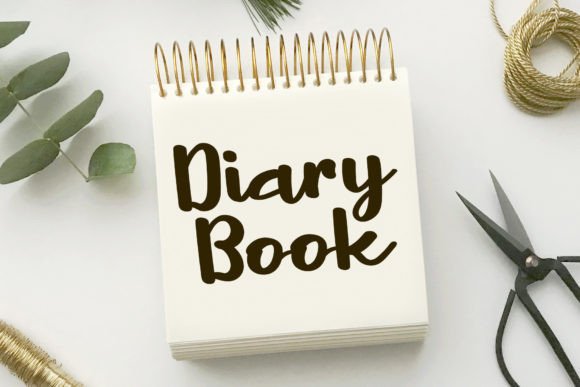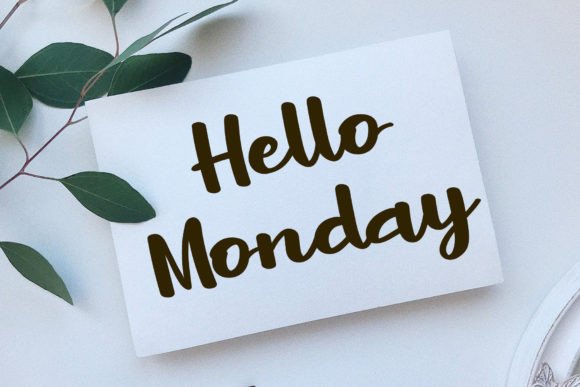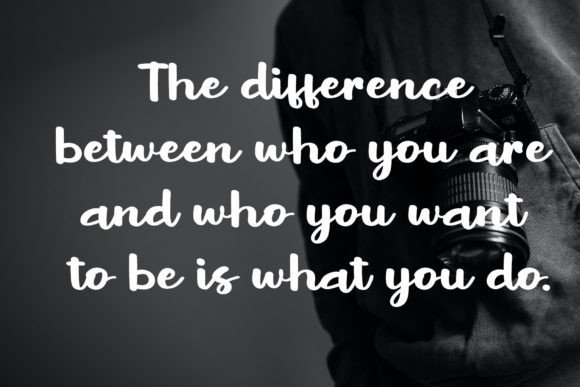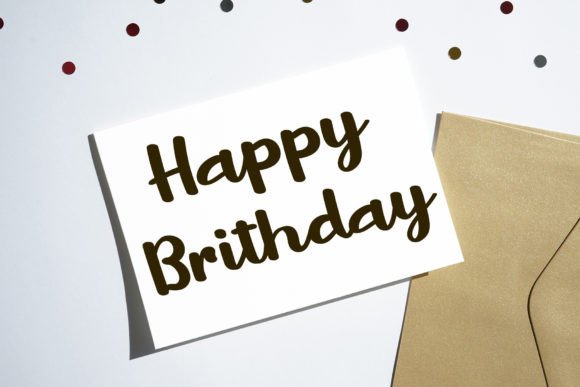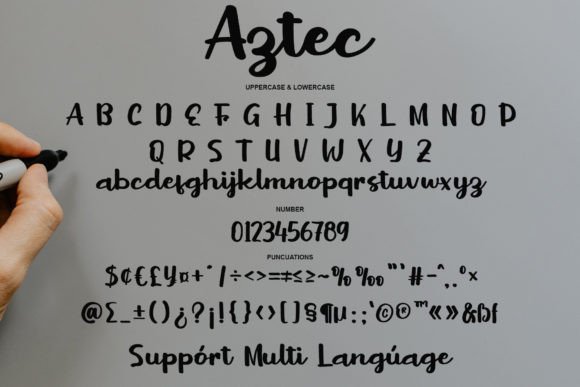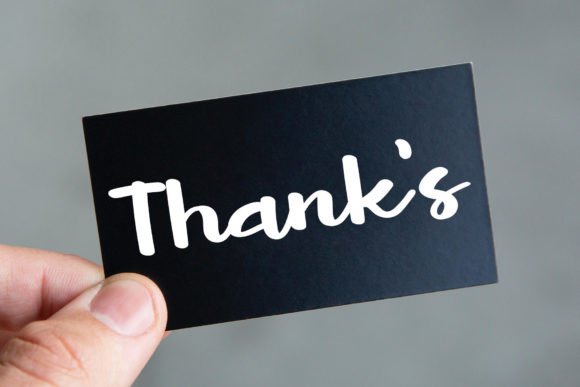
Discover the Elegance of Aztec Font: A Sophisticated Script Font for Your Designs
Are you looking for a font that exudes sophistication and elegance? Look no further than the Aztec Font, a fine and smart script font that is sure to capture your heart. With its incredibly versatile style, Aztec Font is perfect for designers and crafters who want to create spectacular designs that stand out from the crowd.
What Makes Aztec Font So Special?
Aztec Font is a PUA (Private Use Area) encoded font, which means that you can access all of the glyphs and swashes with ease. This feature makes it incredibly easy to use and customize, allowing you to create unique and complex designs that showcase your creativity. Whether you’re designing a logo, creating a social media graphic, or crafting a beautiful wedding invitation, Aztec Font has got you covered.
The Versatility of Aztec Font
One of the standout features of Aztec Font is its versatility. This font can be used in a wide range of design projects, from elegant and sophisticated to playful and whimsical. The font’s smart script style makes it perfect for creating beautiful and flowing text, while its glyphs and swashes add a touch of elegance and refinement.
Aztec Font is a dream come true for designers and crafters who want to create stunning designs without spending hours agonizing over font choices. With Aztec Font, you can create beautiful and professional-looking designs in no time, thanks to its ease of use and flexibility. Whether you’re a seasoned designer or a crafty DIY enthusiast, Aztec Font is the perfect choice for anyone looking to add a touch of sophistication and elegance to their designs.
Key Features of Aztec Font
- PUA Encoded: Access all glyphs and swashes with ease, making it simple to customize and create unique designs.
- Incredibly Versatile: Use Aztec Font in a wide range of design projects, from elegant and sophisticated to playful and whimsical.
- Smart Script Style: Create beautiful and flowing text with Aztec Font’s smart script style.
- Elegant and Refined: Add a touch of elegance and refinement to your designs with Aztec Font’s glyphs and swashes.
Tips and Tricks for Getting the Most Out of Aztec Font
Here are a few tips and tricks to help you get the most out of Aztec Font:
- Experiment with Different Sizes: Aztec Font looks great in a variety of sizes, from small and delicate to large and bold.
- Play with Glyphs and Swashes: Add a touch of elegance and refinement to your designs by incorporating glyphs and swashes.
- Mix and Match with Other Fonts: Combine Aztec Font with other fonts to create unique and interesting typography.
| Author | Bintang Studio |
In conclusion, Aztec Font is a sophisticated and elegant script font that is perfect for designers and crafters who want to create stunning designs. With its incredibly versatile style, PUA encoding, and ease of use, Aztec Font is a must-have for anyone looking to add a touch of sophistication and elegance to their designs. So why wait? Fall in love with Aztec Font and start creating spectacular designs today!